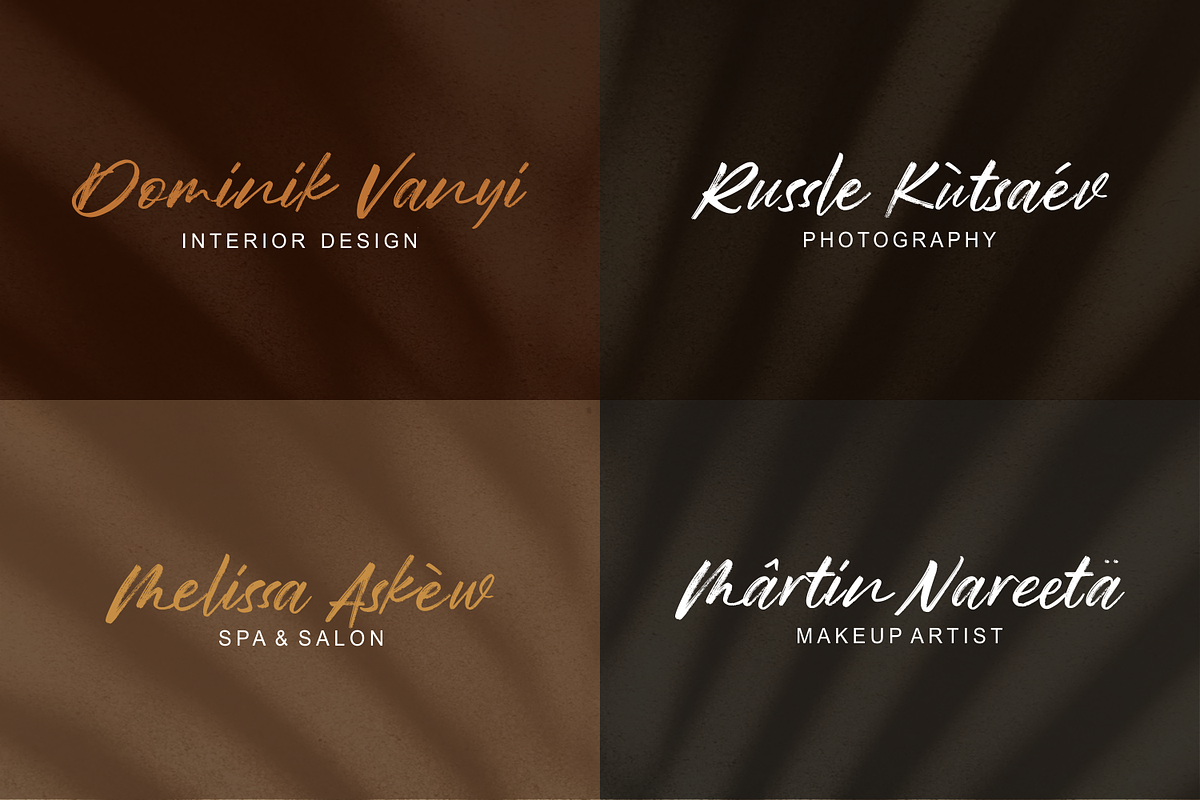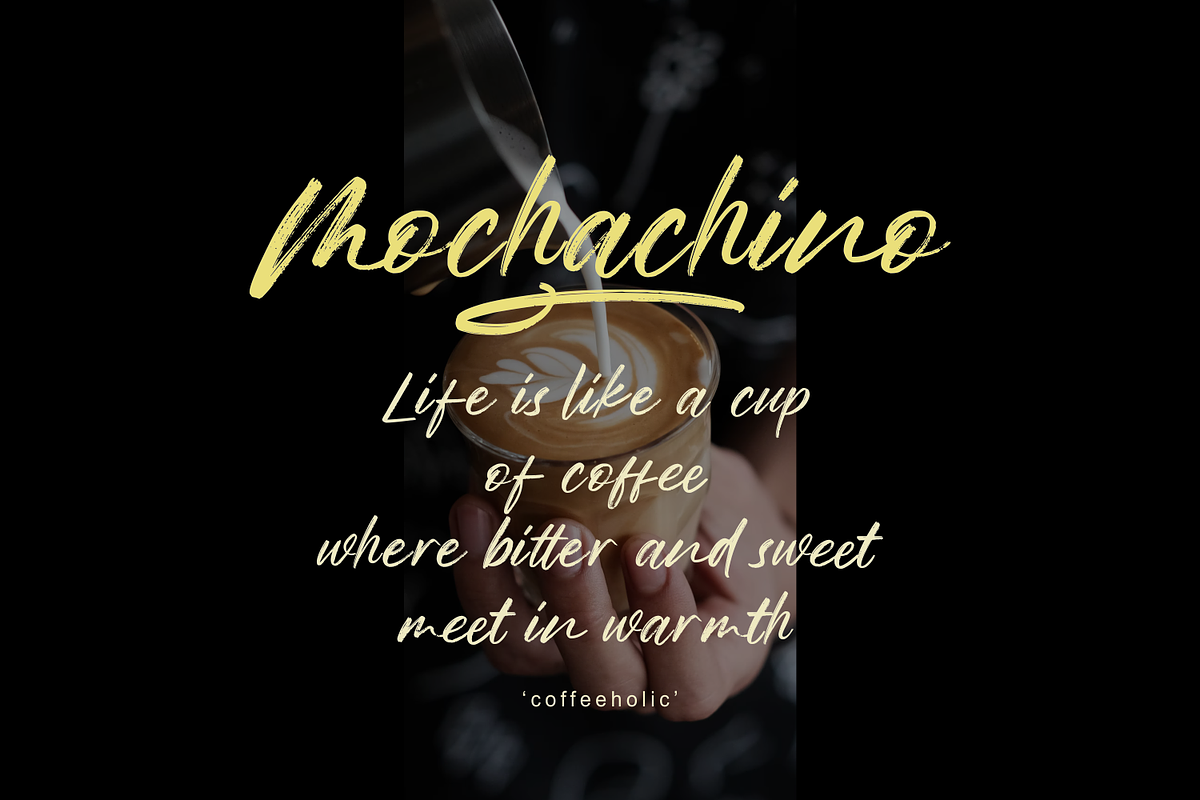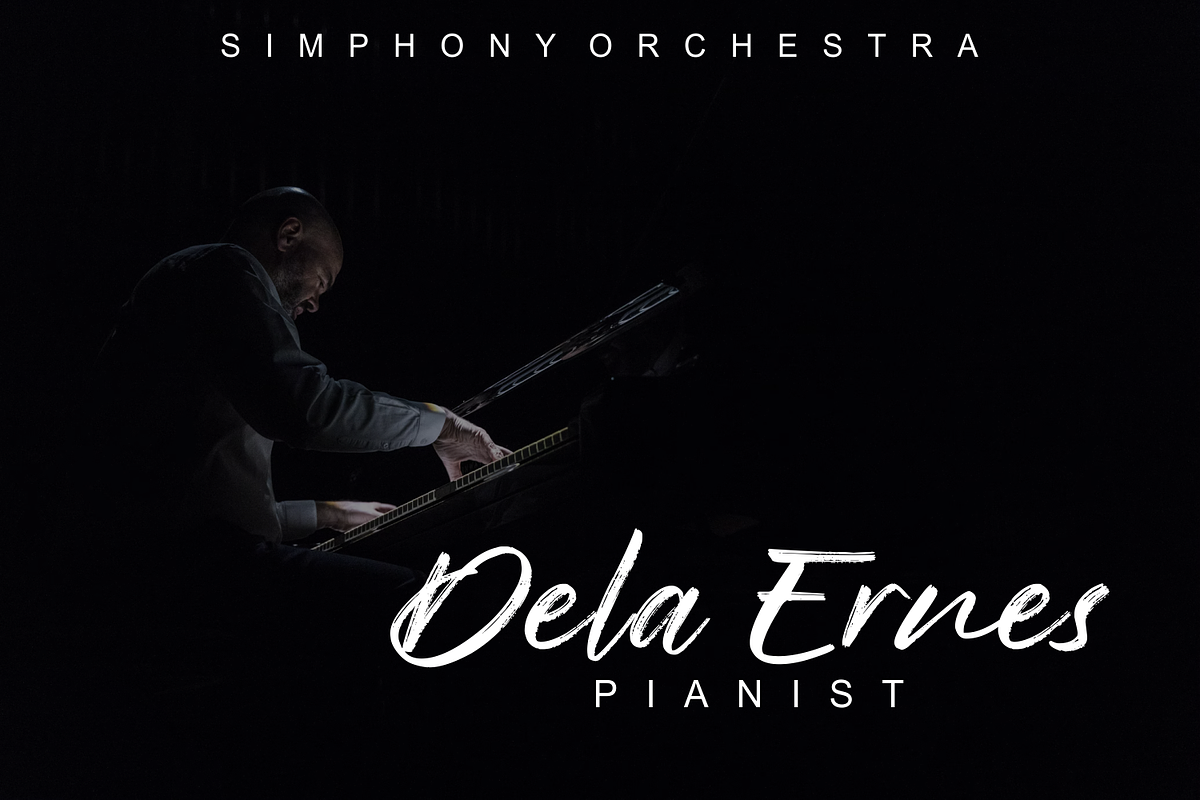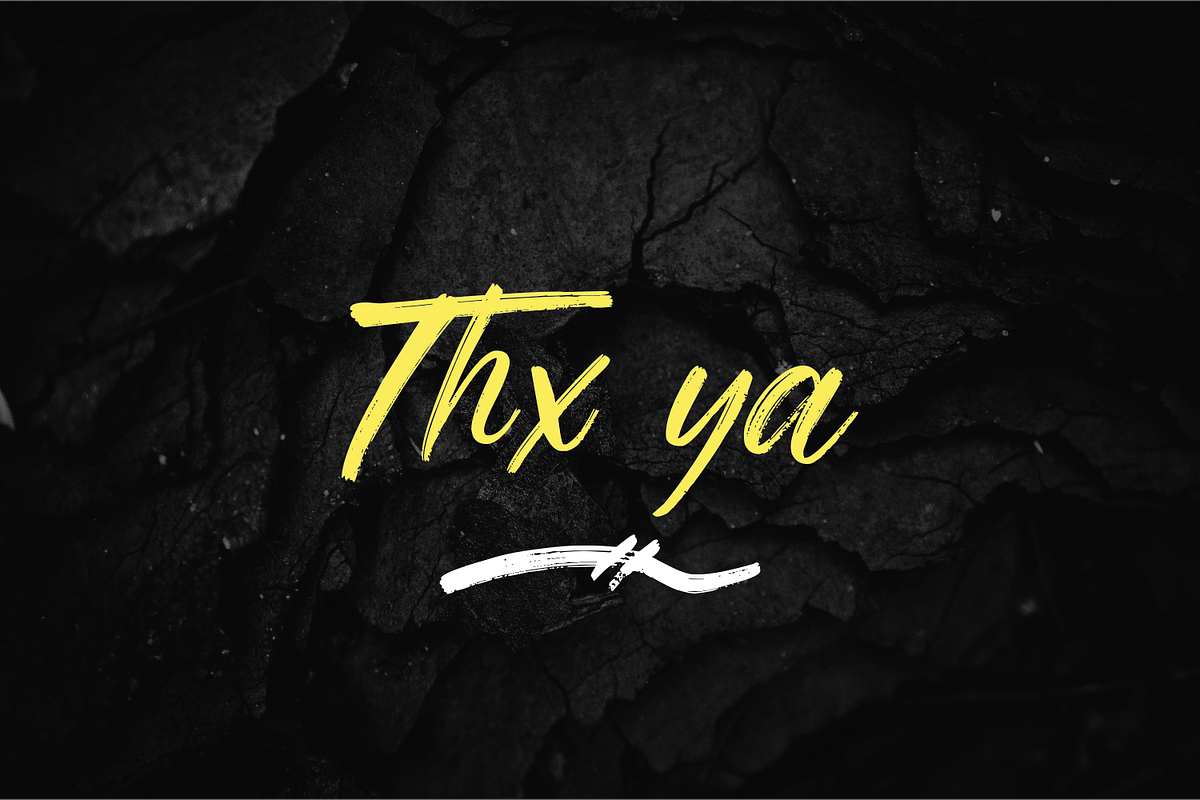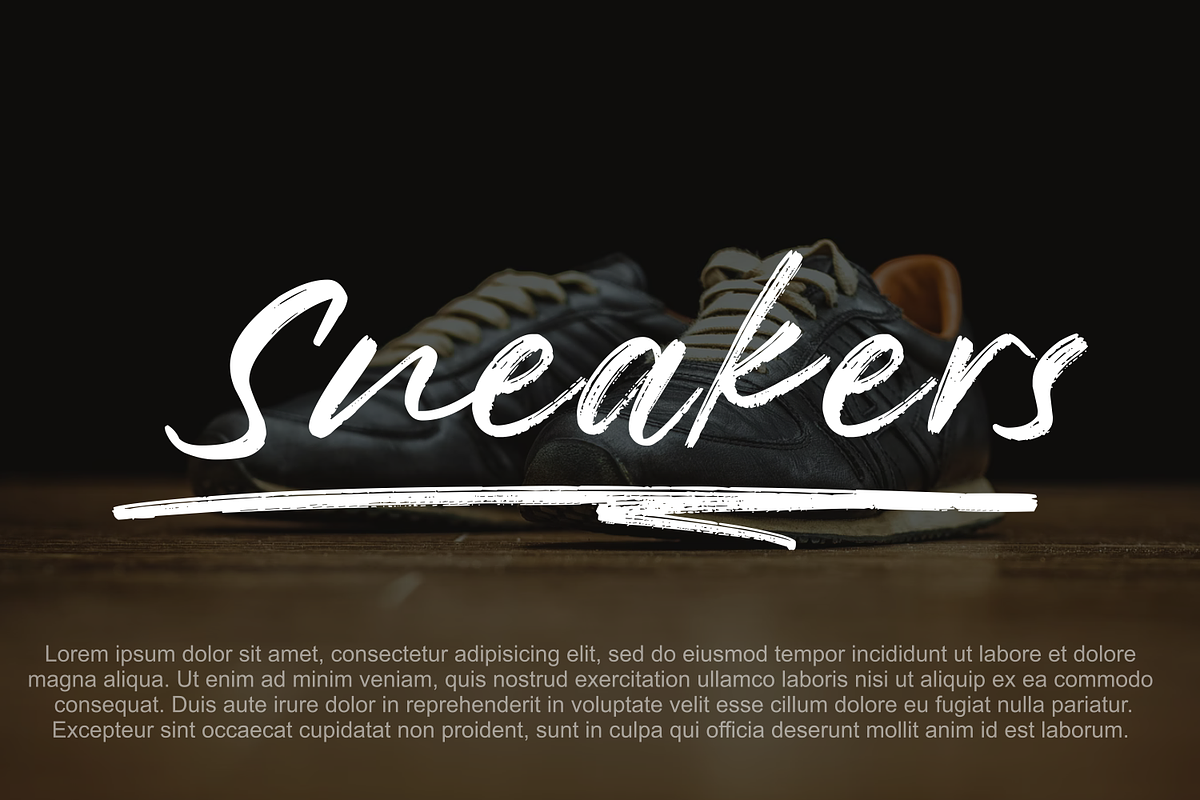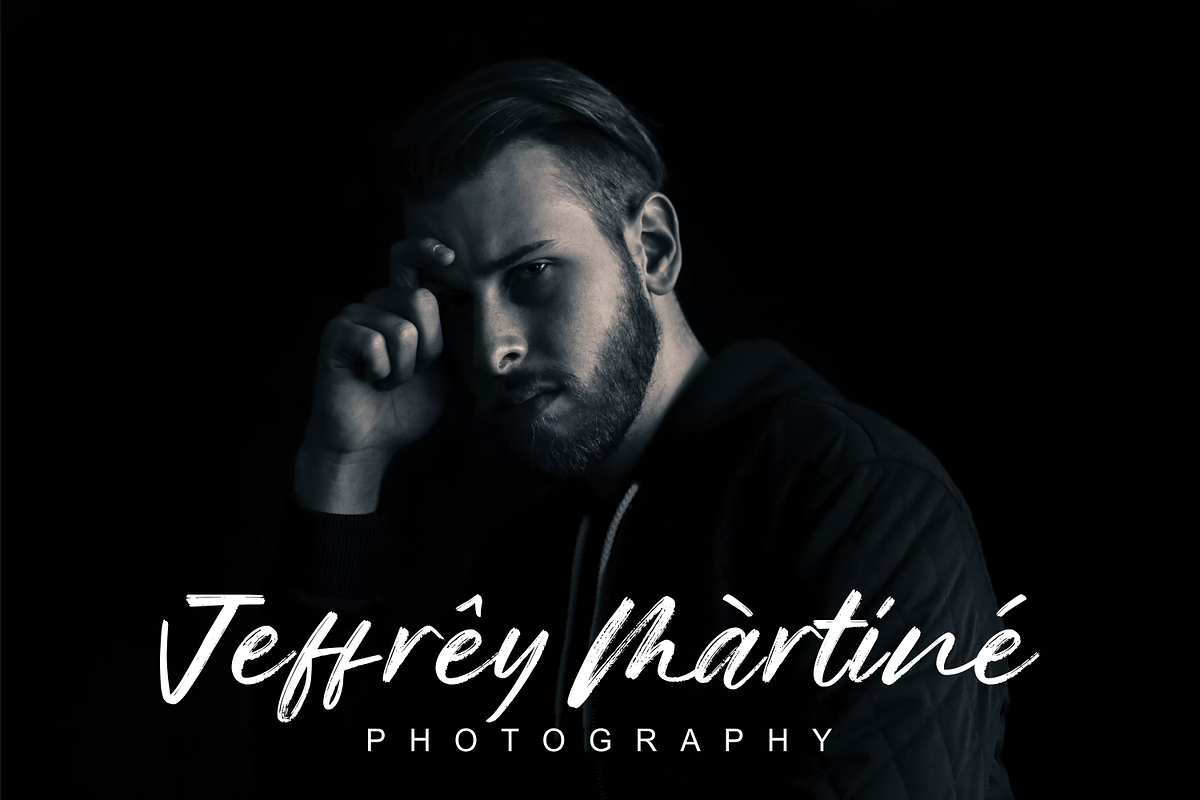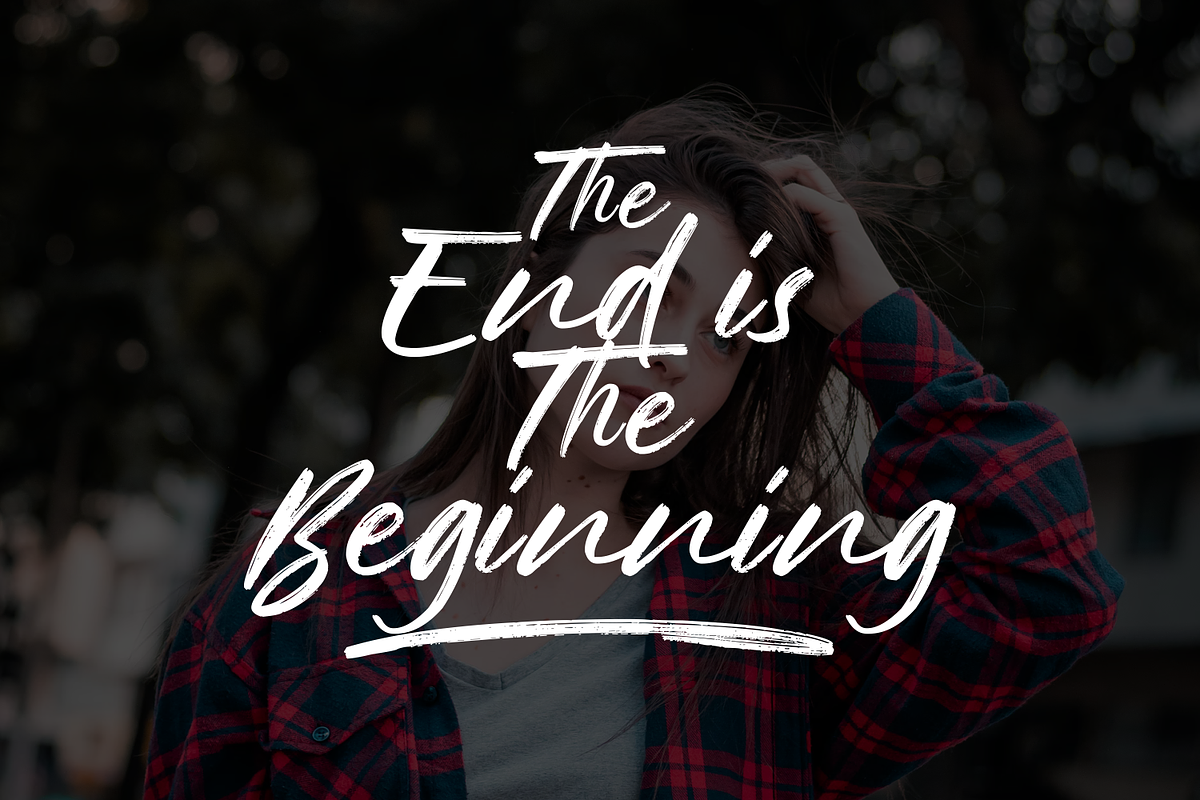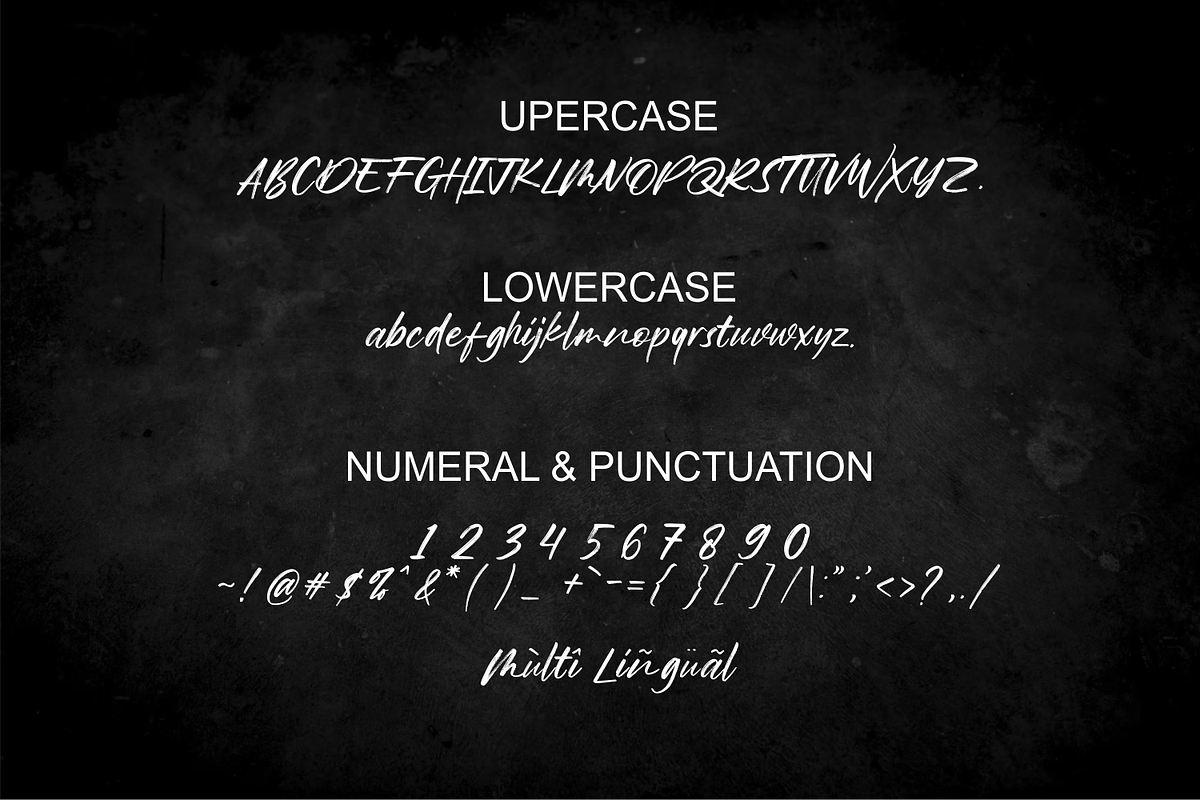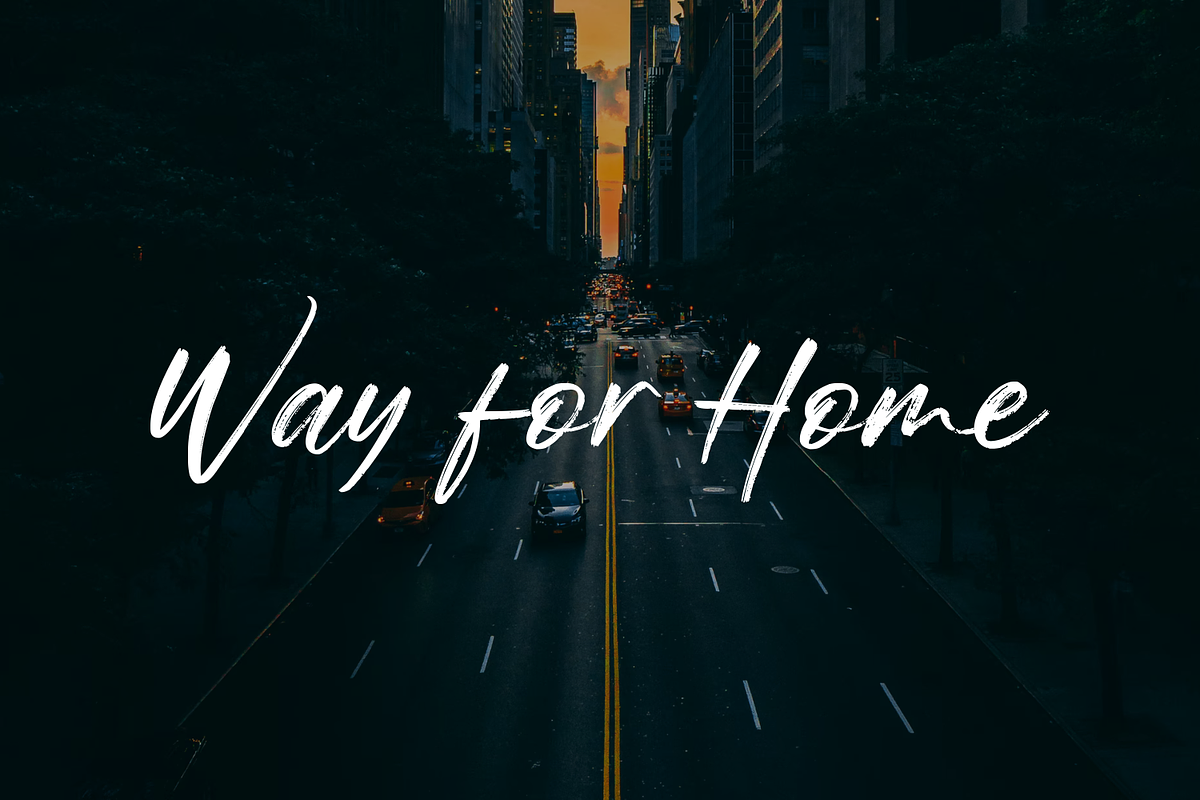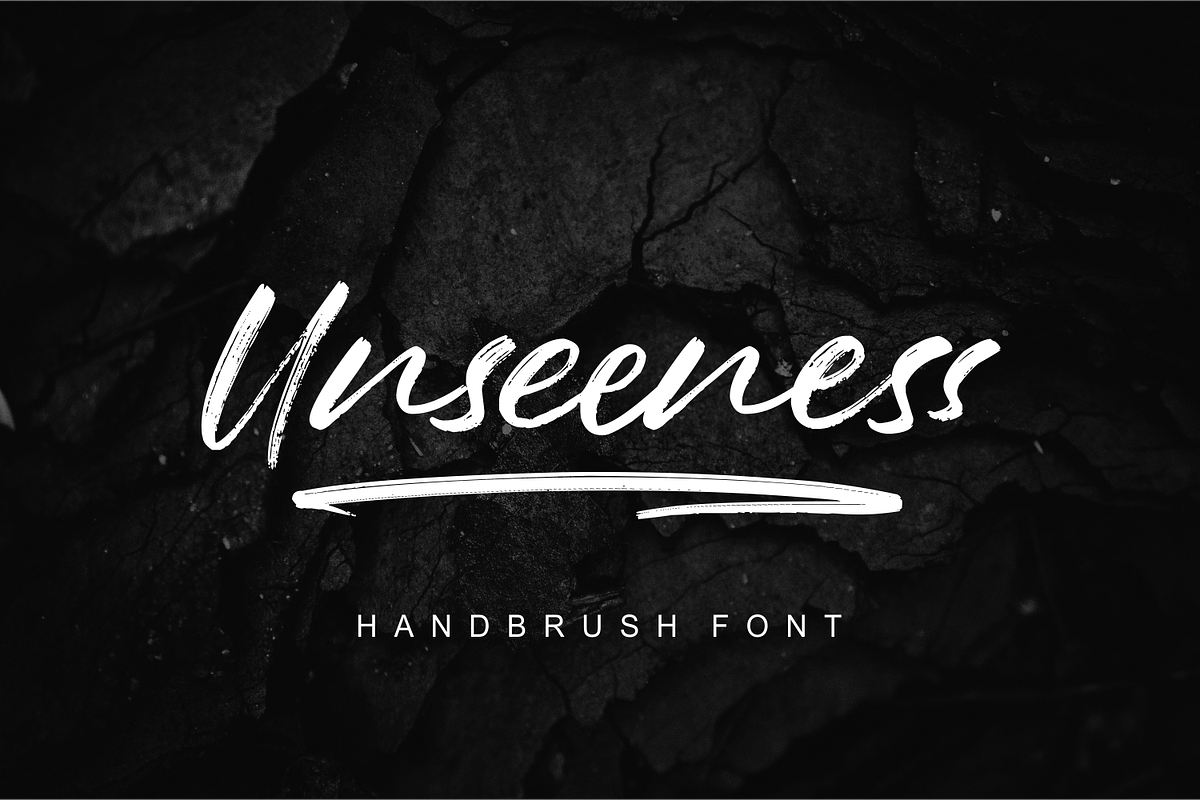
Unseeness
Introducing Unseeness Handbrush A cool, classy and versatile brush font with loose grooves. Unseeness Handbrush is handcrafted / handwritten with a brush pen to provide a stylish script that is guaranteed to add eye-catching appeal to your logo designs, brand imagery, handwritten quotes, product packaging, merchandise & social media posts. Unseeness Handbrush A handcrafted brush font containing upper & lower case characters, numbers and assorted punctuation marks. Swash can be accessed by simply typing ( a - j + underscore )a - j Ligatures (double letters) are available for certain character combinations. This can be accessed by turning on 'Discretionary Ligatures' in any OpenType enabled software, or via the Glyphs panel. Fonts are provided in TTF.OTF and WOFF format formats The font includes multilingual support for the following languages; English, French, Italian, Spanish, Portuguese, German, Swedish, Norwegian, Danish, Dutch, Turkish, Polish, Finnish, Indonesian, Filipino, Malay.